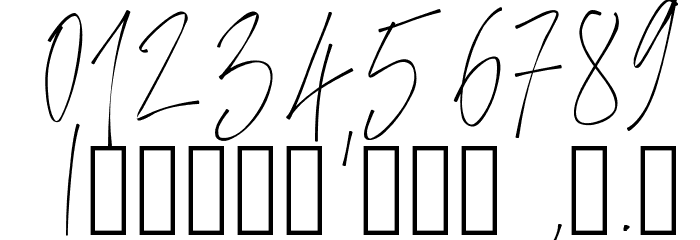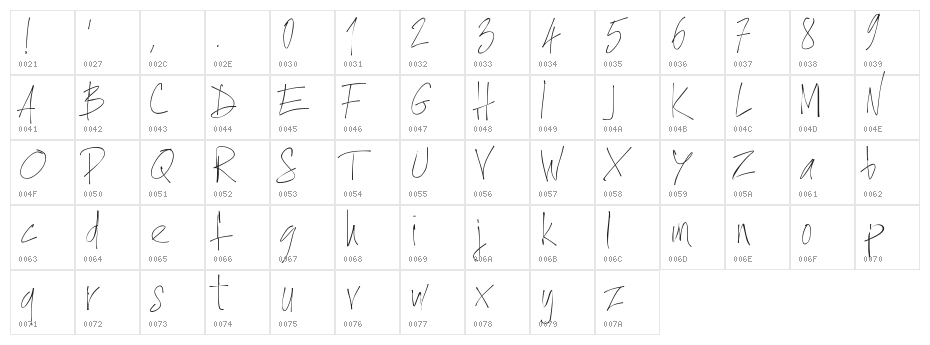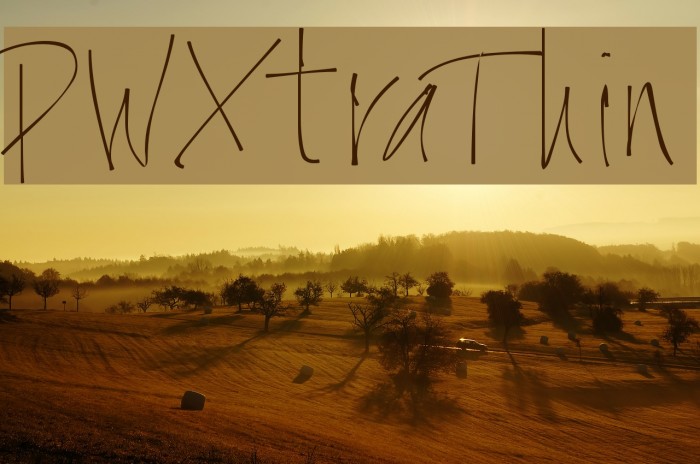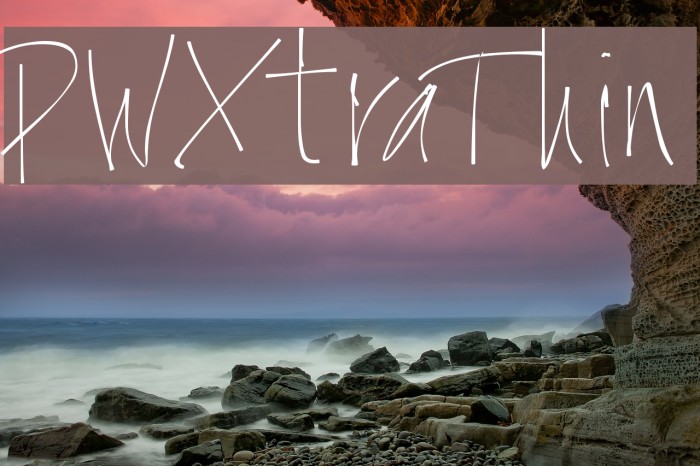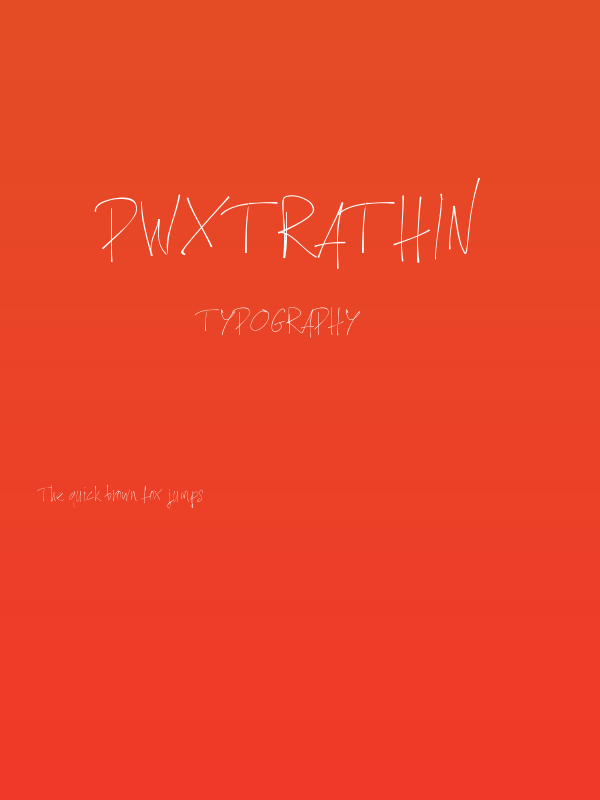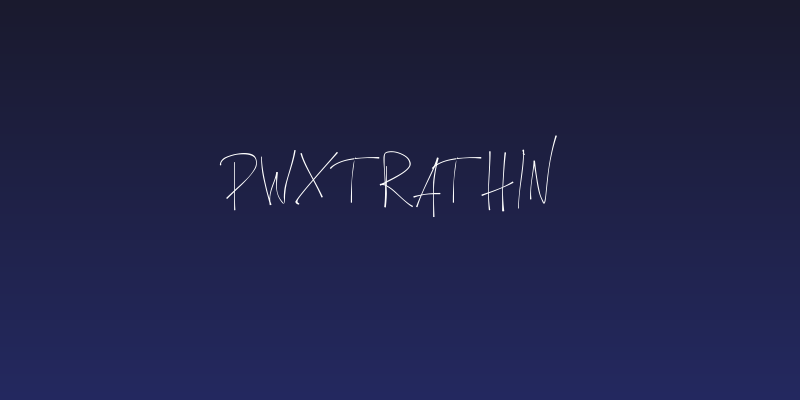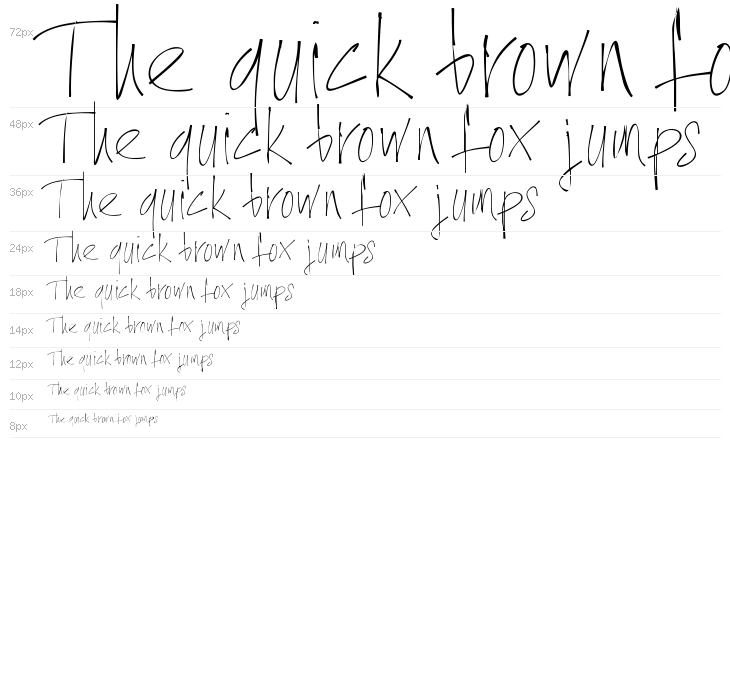
PWXtraThin Font
PWXtraThin Description
This font features a handwritten, casual style with thin, elongated strokes that give it a light and airy appearance. The characters are slightly slanted, adding a dynamic and informal touch. The uppercase letters are tall and narrow, while the lowercase letters maintain a consistent height, creating a harmonious balance. The numerals are distinct and easy to read, with a playful yet sophisticated flair. Special characters are included, maintaining the overall aesthetic. This font is perfect for projects that require a personal, approachable feel.
| Overall Style | Casual, Handwritten |
| Use Case | Invitations, Personal notes, Casual branding |
| Proposed Projects | Ideal for personal notes, invitations, casual branding, and creative projects that require a personal touch. |